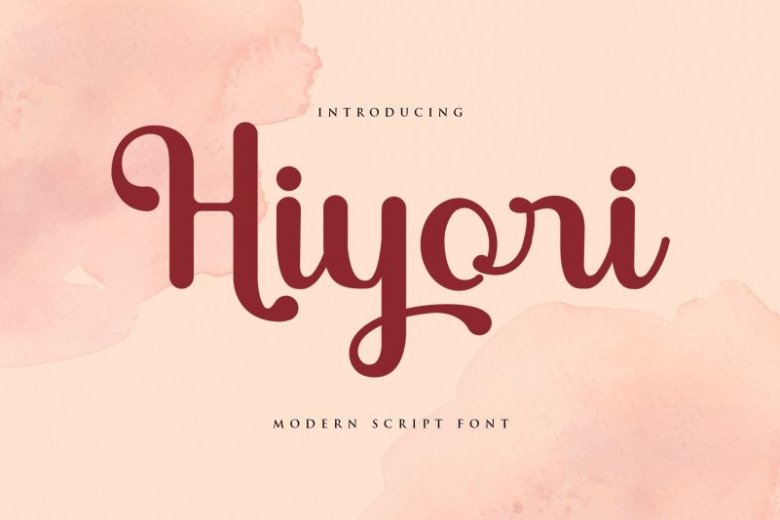
Hiyori Font
Introducing Hiyori Script Font is an elegant and beautiful modern handwritten font, carefully handcrafted to become a true favorite. Its casual calm makes it appear wonderfully down-to-earth, readable, and, ultimately, incredibly versatile.
Hiyori also have more alternate with begining swash and end swash is great choice for watermark on wedding organizer, signature or signature logo design, quotes, album cover, business card and many other design project. Hiyori is here to make your work or your business to high level!!!